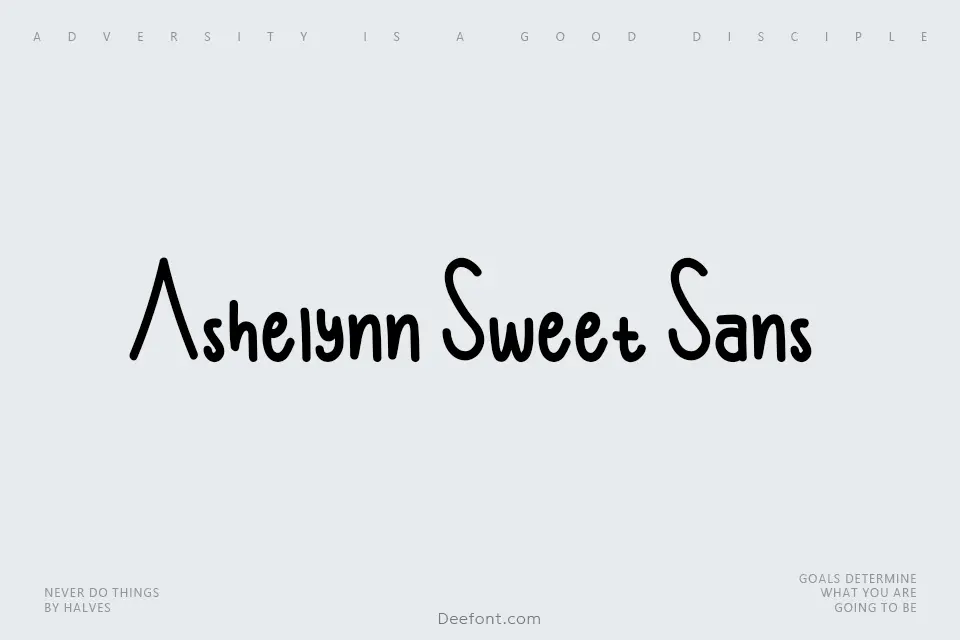
Ashelynn Sweet Sans Font
Ashelynn Sweet Sans Font is an enchanting handwritten display typeface featuring rounded, friendly letterforms with soft curves and gentle strokes. This modern sans serif showcases a playful yet sophisticated aesthetic, ideal for headlines, posters, branding, and invitations. Its warm, approachable character brings personality to any design project while maintaining excellent readability at display sizes. Perfect for contemporary campaigns, greeting cards, social media graphics, and decorative applications seeking a touch of artistic warmth.